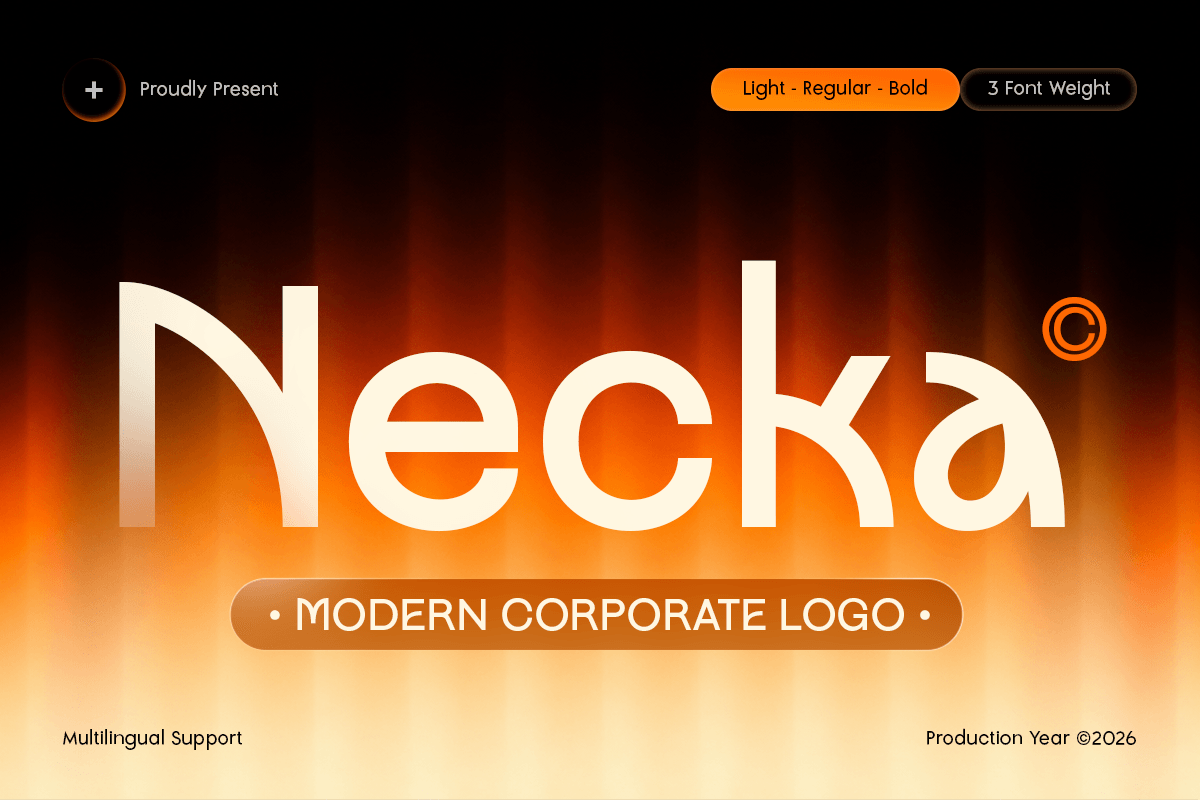
Necka
-Modern Corporate Logo Font
Necka - Modern Corporate Logo Font
Necka is a modern corporate logo font designed to create a clean, professional, and confident visual identity. Built with balanced proportions, refined geometry, and a minimalist structure, this typeface is perfect for company logos, business branding, presentations, websites, and corporate marketing materials.
Its modern and versatile appearance makes Necka suitable for startups, agencies, consulting firms, technology companies, finance brands, real estate businesses, and professional service providers. The clean letterforms help every design feel trustworthy, organized, and visually consistent across both print and digital media.
Whether used for logo design, brand guidelines, website headers, packaging, or presentation layouts, Necka delivers clarity, sophistication, and a strong modern business tone.
Necka – Modern Corporate Logo Font Features
• Clean and modern sans serif style for corporate branding
• Available in light, regular and bold version of weights
• Perfect for logos, business identities, websites, and presentations
• Geometric letterforms with excellent readability
• Ideal for startups, agencies, finance, tech, and professional brands
• OpenType features for enhanced typographic flexibility
Build a polished and professional identity with Necka – the perfect corporate logo font for modern branding, business design, and clean visual communication. ✨